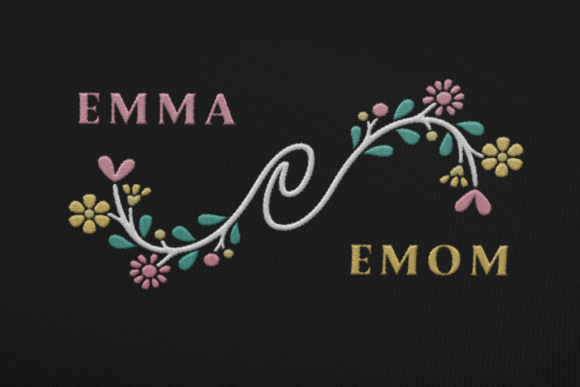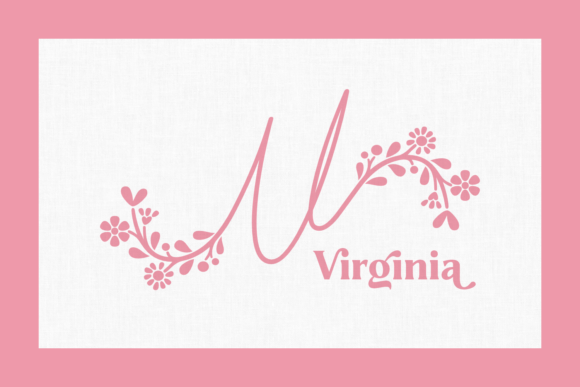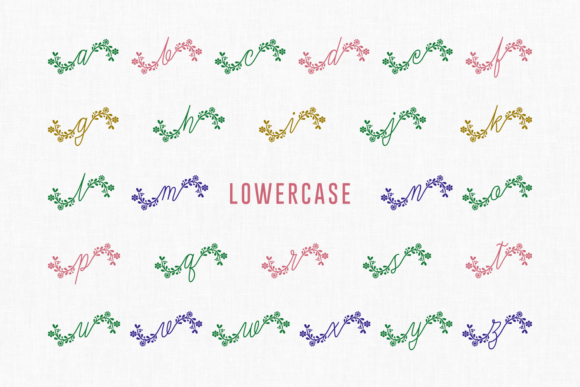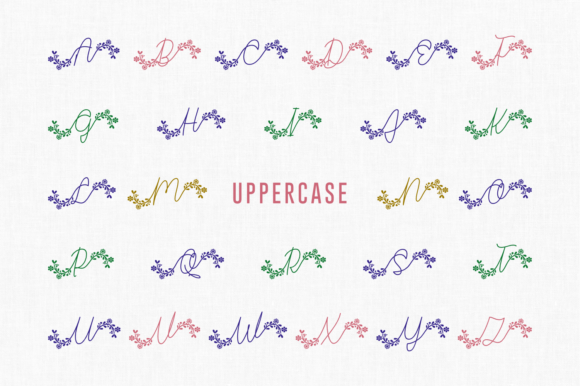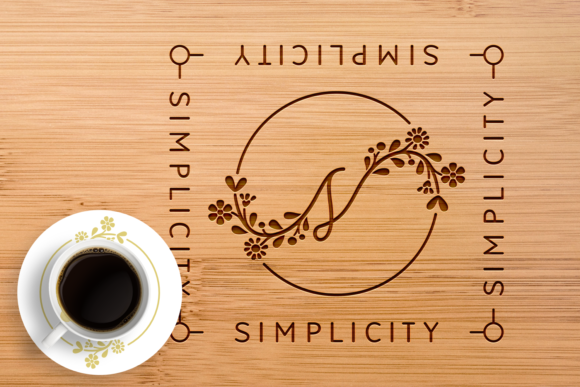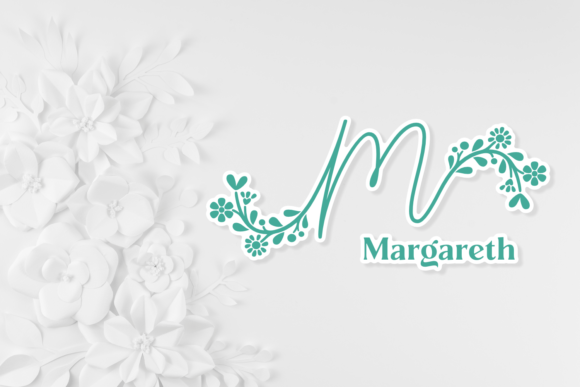
Introducing Aspring Monogram Font: Elevate Your Designs with Elegance
Are you looking for elegant monogram fonts that you can use for embroidery projects or other creative purposes? Look no further because Aspring Monogram is a suitable font for your needs. It features flourish detailed lowercase and uppercase characters. This spring-inspired typeface is ideal for wedding cards, embroidery designs, kids’ clothing, personal branding, flower shops designs, and logos.
What Makes Aspring Monogram Font Special?
Aspring Monogram Font stands out from the rest due to its unique and elegant design. The font features intricate details and flourishes that give it a sophisticated and luxurious feel. The characters are carefully crafted to provide a beautiful and harmonious look, making it perfect for various design projects.
Key Features of Aspring Monogram Font
- Flourish Detailed Characters: The font features intricate flourishes and details that add an extra layer of elegance to your designs.
- Uppercase and Lowercase Characters: Aspring Monogram Font includes both uppercase and lowercase characters, providing you with a wide range of options for your designs.
- Spring-Inspired Design: The font’s design is inspired by the beauty of spring, making it perfect for seasonal designs and projects.
- Embroidery-Friendly: The font is designed with embroidery in mind, making it ideal for use on clothing, fabric, and other materials.
Use Cases for Aspring Monogram Font
Aspring Monogram Font is versatile and can be used for a variety of design projects, including:
- Wedding Cards and Stationery: Add a touch of elegance to your wedding cards and stationery with Aspring Monogram Font.
- Embroidery Designs: Use the font to create beautiful embroidery designs for clothing, fabric, and other materials.
- Kids’ Clothing and Accessories: The font’s playful and elegant design makes it perfect for kids’ clothing and accessories.
- Personal Branding: Use Aspring Monogram Font to create a unique and recognizable brand identity.
- Flower Shops and Floral Designs: The font’s spring-inspired design makes it ideal for use in flower shop designs and floral arrangements.
- Logos and Business Cards: Create a professional and elegant logo or business card with Aspring Monogram Font.
Why Choose Aspring Monogram Font?
Aspring Monogram Font is a high-quality font that offers a unique and elegant design. Here are some reasons why you should choose Aspring Monogram Font for your next design project:
- Unique Design: The font’s design is unlike any other, providing you with a unique and distinctive look.
- Elegant and Sophisticated: Aspring Monogram Font exudes elegance and sophistication, making it perfect for high-end designs.
- Versatile: The font can be used for a wide range of design projects, from wedding cards to embroidery designs.
In conclusion, Aspring Monogram Font is a beautiful and elegant font that is perfect for designers and crafters looking for a unique and sophisticated typeface. Its spring-inspired design, flourish details, and versatility make it an ideal choice for a wide range of design projects. Whether you’re creating wedding cards, embroidery designs, or logos, Aspring Monogram Font is sure to elevate your designs to the next level.